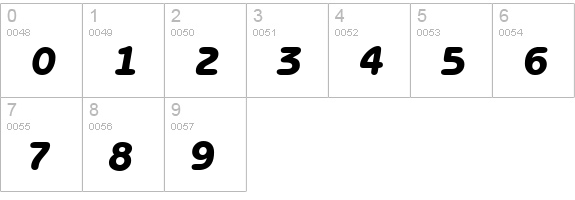
B691-Sans-Heavy-Italic is a heavy, high-impact, italic variant in the B691 typeface family \xE2\x80\x94 well suited to high-impact headlines, posters, and display advertising.
B691-Sans-Heavy-Italic is a bold and stylish font that exudes modernity and sophistication. Its slanted design adds a dynamic touch to any project, making it perfect for headings, logos, and branding materials. The sturdy strokes and sharp angles of this typeface give it a strong presence while maintaining a sleek and elegant feel. What sets B691-Sans-Heavy-Italic apart is that it is available for free download at FontsMarket.com. This means that you can access this high-quality font without any cost, making it a valuable addition to your font collection. Whether you're a designer looking for a versatile typeface or a business owner seeking a distinctive font for your brand, B691-Sans-Heavy-Italic is sure to make a statement and leave a lasting impression.